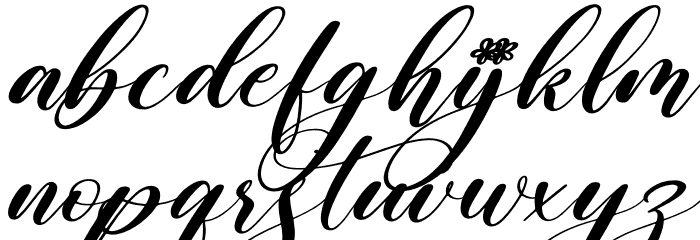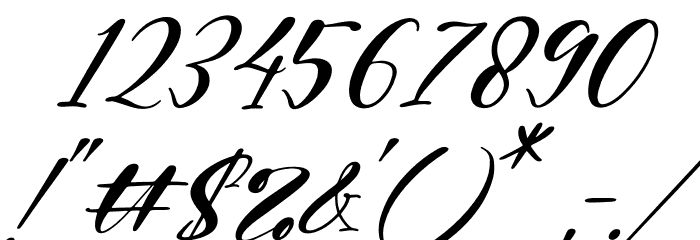
Regista Italic Font
This font exudes elegance and sophistication with its flowing, cursive style. The characters are designed with a high degree of slant, giving it a dynamic and graceful appearance. Each letter is crafted with intricate loops and swashes, adding a touch of flair and personality. The strokes vary in thickness, creating a high contrast that enhances readability while maintaining an artistic flair. This font is perfect for making a statement, whether in print or digital media. Its unique style is both modern and timeless, making it suitable for a variety of design projects.
An elegant, high-contrast cursive font with dynamic slant and intricate swashes.
- Font: Regista Italic
- Proposed Projects: Ideal for wedding invitations, luxury branding, elegant packaging, and artistic posters.
- Category: Script
- Overall Style: Elegant, Modern
- Use Case: Logos, Invitations, Headlines